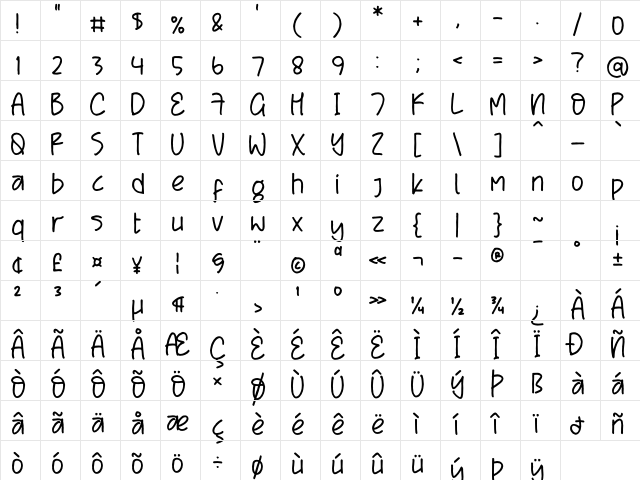
Rageon Regular
Foundry: Perspectype Studio
Designer: Heru Utama Putra
Design Context for Rageon
Rageon is a composed and adaptable typeface that performs quietly and consistently across a wide range of design contexts.